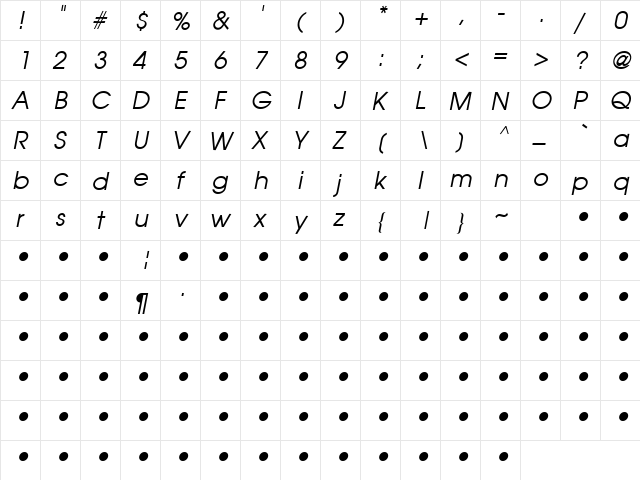
QTAvanti Italic
Design Context for QTAvanti Typeface
QTAvanti is a composed and adaptable typeface that performs quietly and consistently across a wide range of design contexts. Its italic angle brings a sense of urgency and motion to the letterforms.
Pro Tip: Try QTAvanti for annotation and caption copy alongside an upright companion — the contrast in angle creates a dynamic but ordered typographic system.